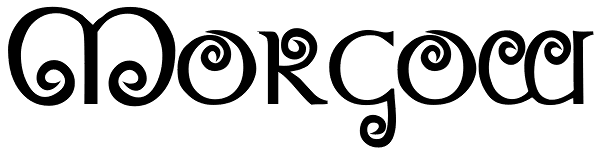
Morgow
Morgow is a decorative Celtic uncial font based on original hand lettering. It is similar to other uncial fonts, but the characters are embellished with traditional Celtic spiral designs. The font is appropriately named after a species of legendary...